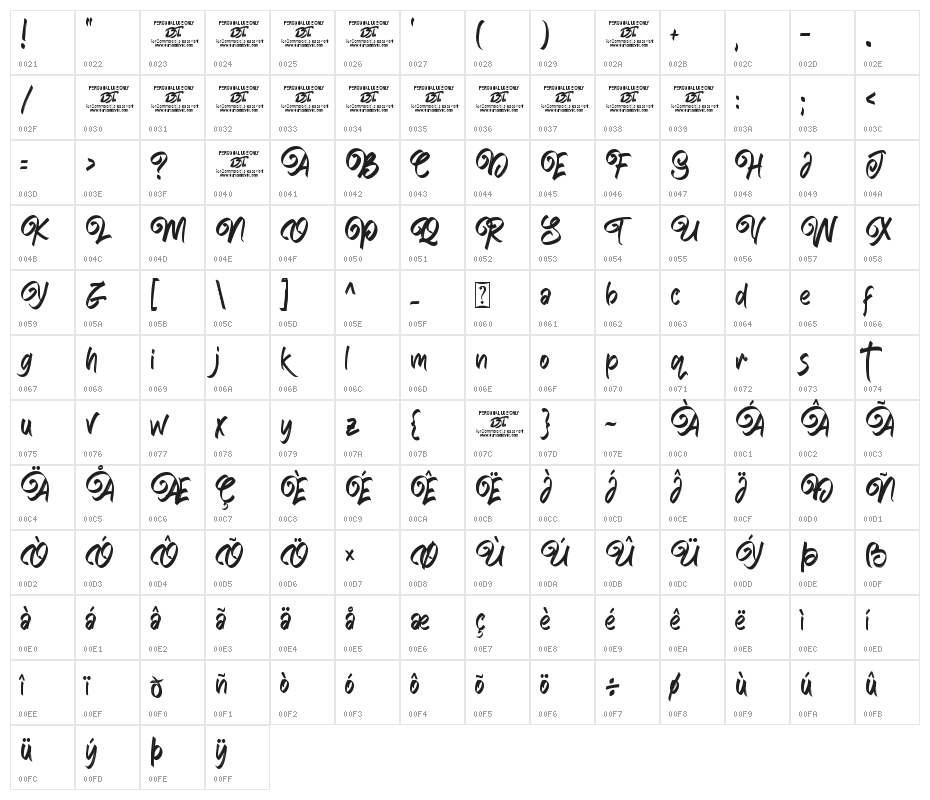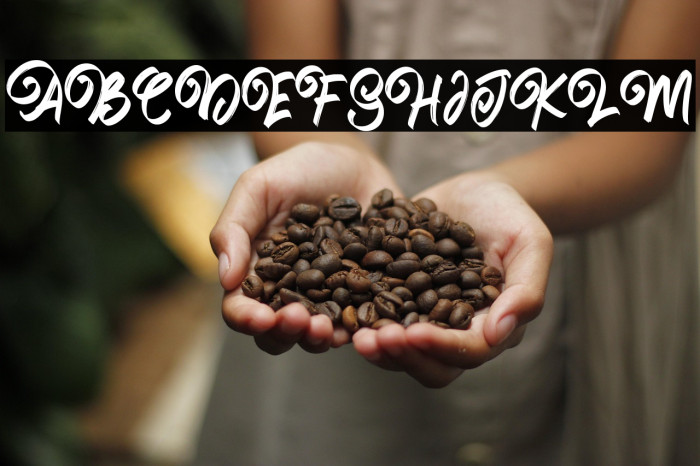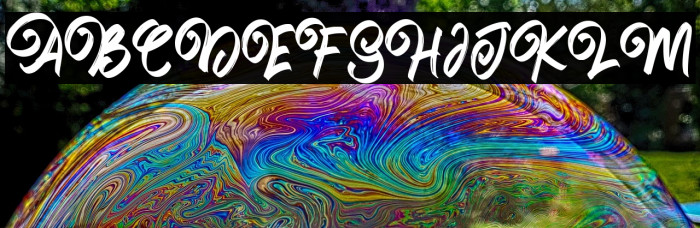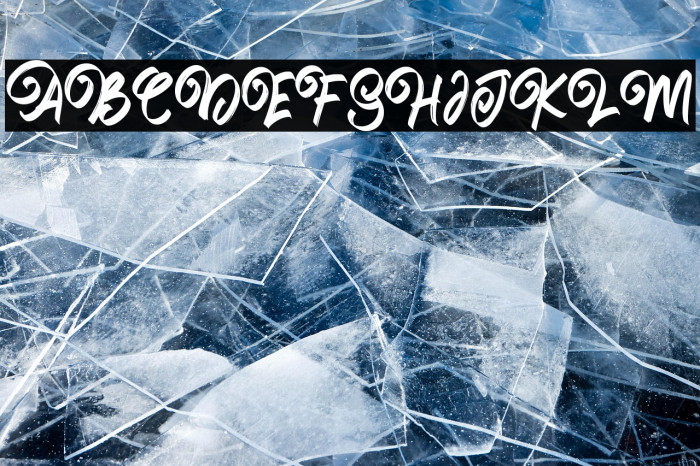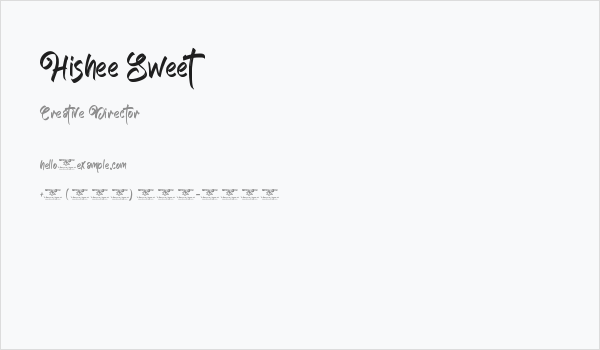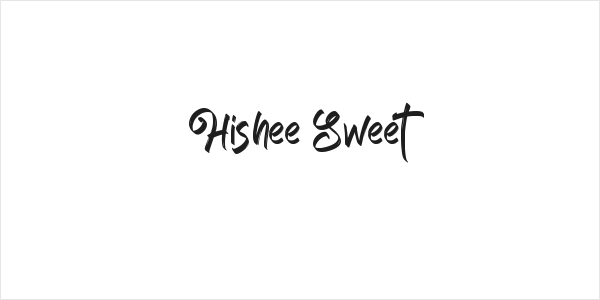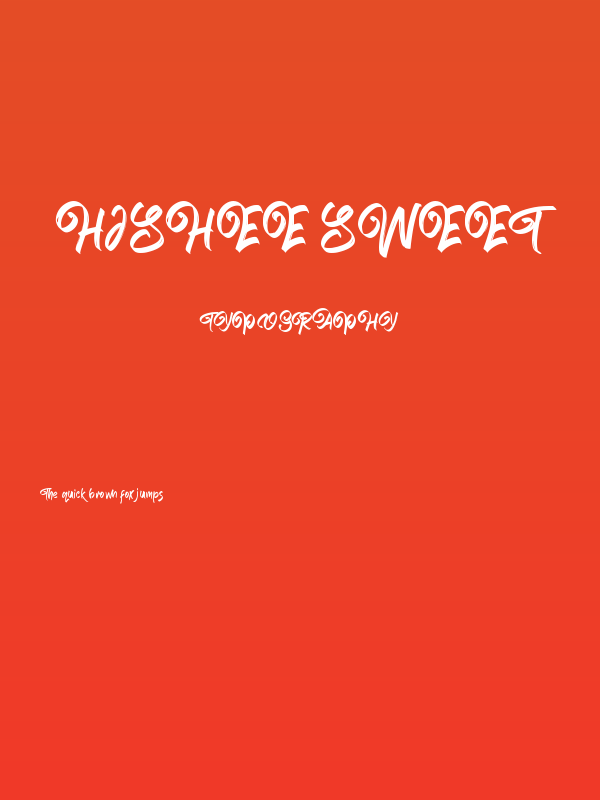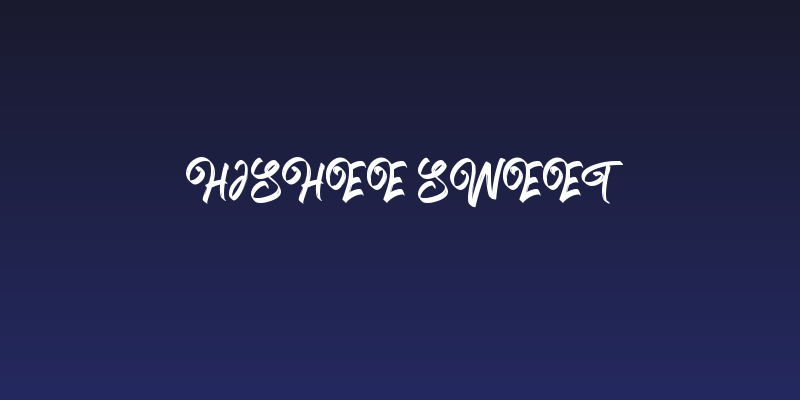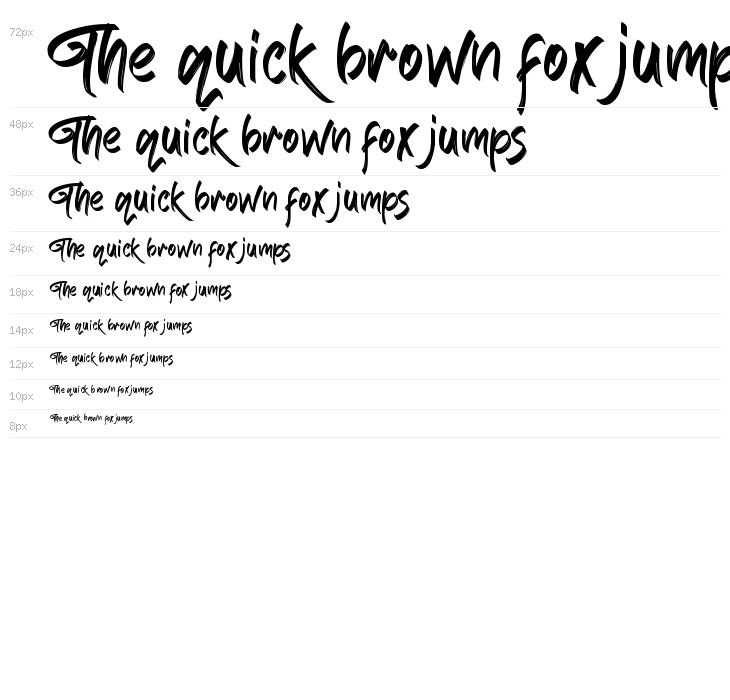
Hishee Sweet Font
Hishee Sweet Description
This font features a bold and expressive style with a handwritten flair. The characters exhibit a dynamic flow, with each letter connecting smoothly to the next, creating a sense of movement and energy. The strokes are thick and varied, adding a touch of artistic flair. The uppercase letters are particularly striking, with elaborate curves and loops, while the lowercase letters maintain a consistent, flowing style. This font is perfect for projects that require a personal touch or a creative, informal feel.
| Proposed Projects | Ideal for greeting cards, invitations, posters, and branding projects that require a personal and creative touch. |